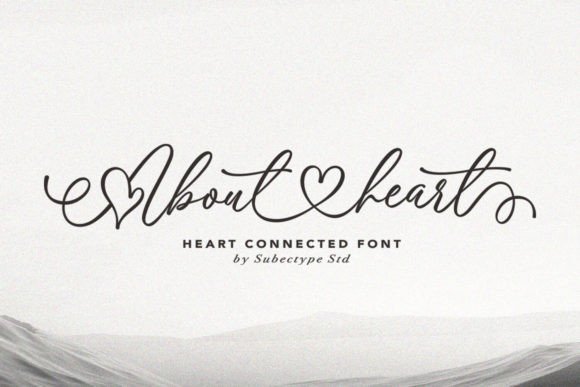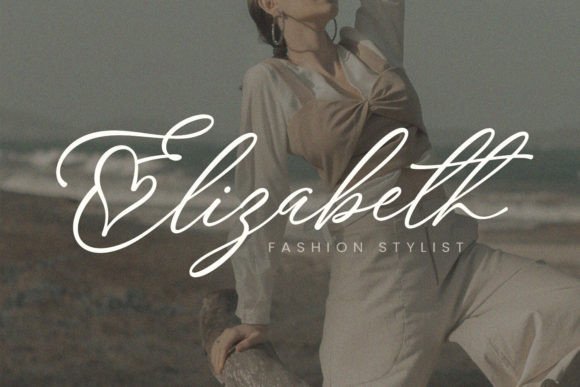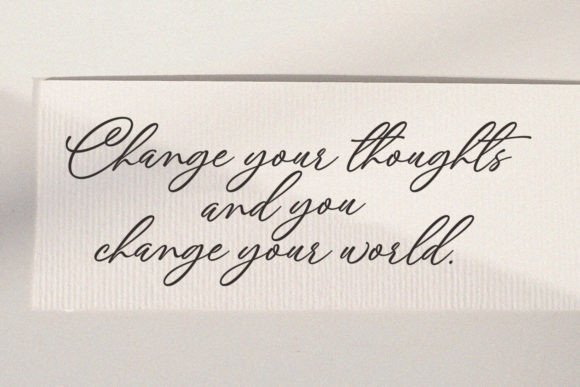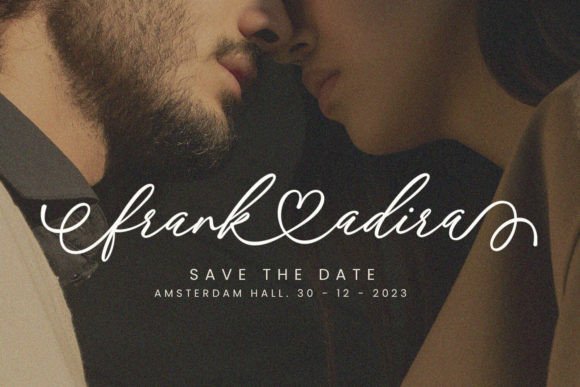
About Heart Font
About the About Heart Font
Let us introduce you to About Heart Font, where timeless design meets modern craftsmanship. About Heart is a Chic calligraphy font with Heart connected style, described by an Love touch, perfect for your favorite projects.
Fall in love with its incredibly distinct and timeless style and use it to create spectacular designs!
About Heart’s elegant and romantic style is ideal for projects requiring a touch of delicate sophistication. It excels in headlines, short-form text on invitations or greeting cards, and logo design where its distinctive letterforms create a memorable brand mark. However, its calligraphic nature makes it unsuitable for large bodies of text or user interfaces where readability is paramount.
The flowing forms of About Heart pair beautifully with clean sans-serif fonts like Lato or Montserrat for a balanced contrast, enhancing readability without sacrificing visual appeal. Alternatively, a classic serif such as Garamond or Playfair Display can create a more traditional and luxurious feel, emphasizing the font’s refined personality. Avoid pairing it with other highly decorative scripts, which would visually clash and overwhelm the design.
About Heart projects an air of sophisticated romance, making it perfect for brands focused on beauty, fashion, weddings, or luxury goods. Its inherent charm lends itself to designs needing a touch of handmade quality and timeless appeal.
About Heart Font Usage Examples
About Heart Font Example